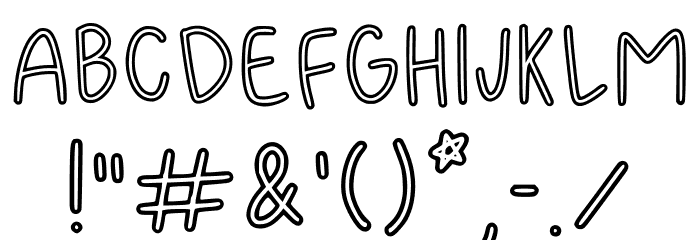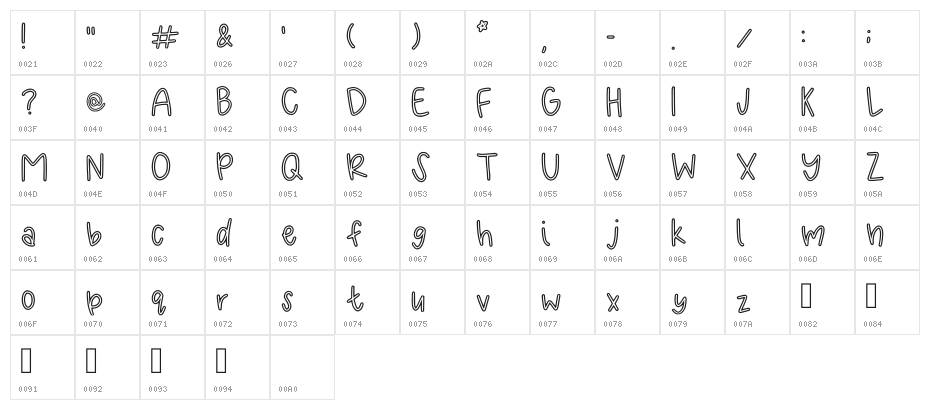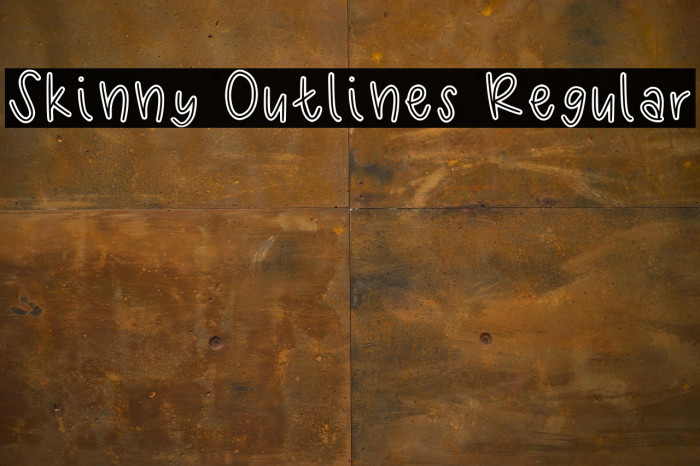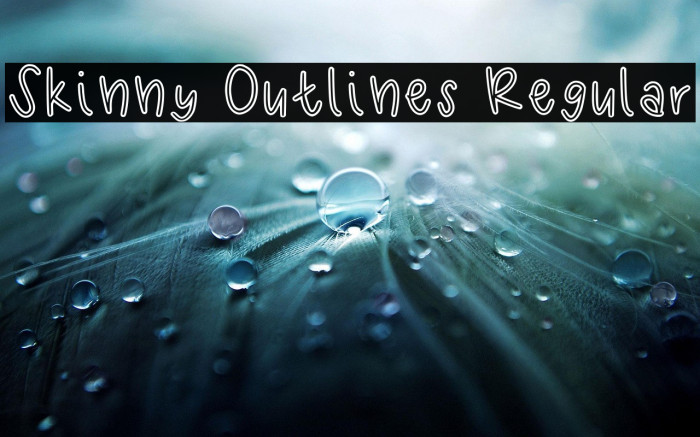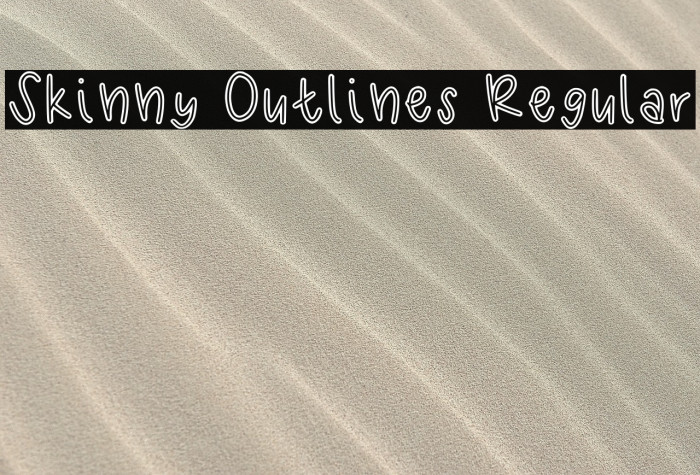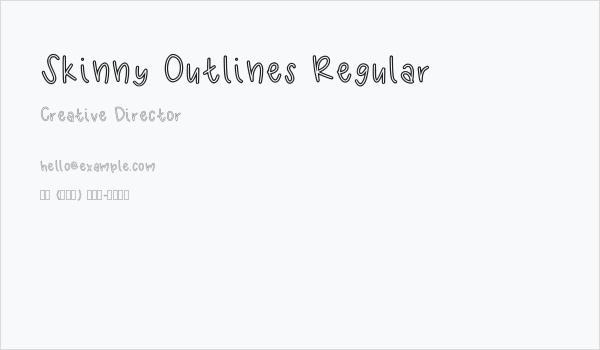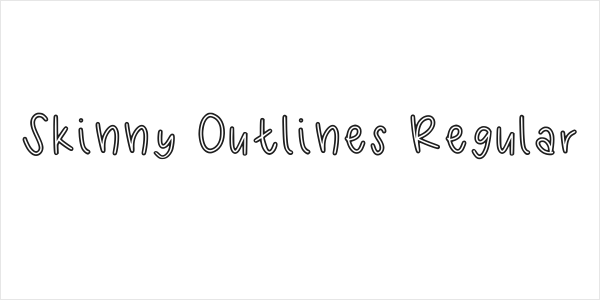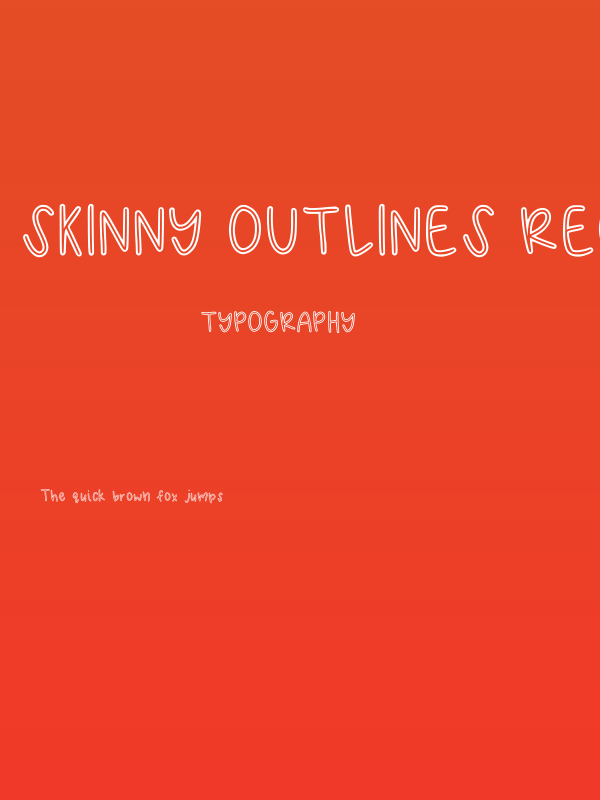
Skinny Outlines Regular Font
Skinny Outlines Regular Description
This playful and whimsical font features a hand-drawn style with outlined characters, giving it a unique and artistic appearance. The letters are tall and narrow, with a consistent stroke width that creates a clean and modern look. The uppercase and lowercase letters maintain a cohesive design, while the numbers and special characters complement the overall aesthetic. The font's informal and friendly vibe makes it suitable for creative projects that require a touch of personality and charm.
| Overall Style | Whimsical, Artistic |
| Proposed Projects | Ideal for children's books, greeting cards, posters, and creative branding projects. |